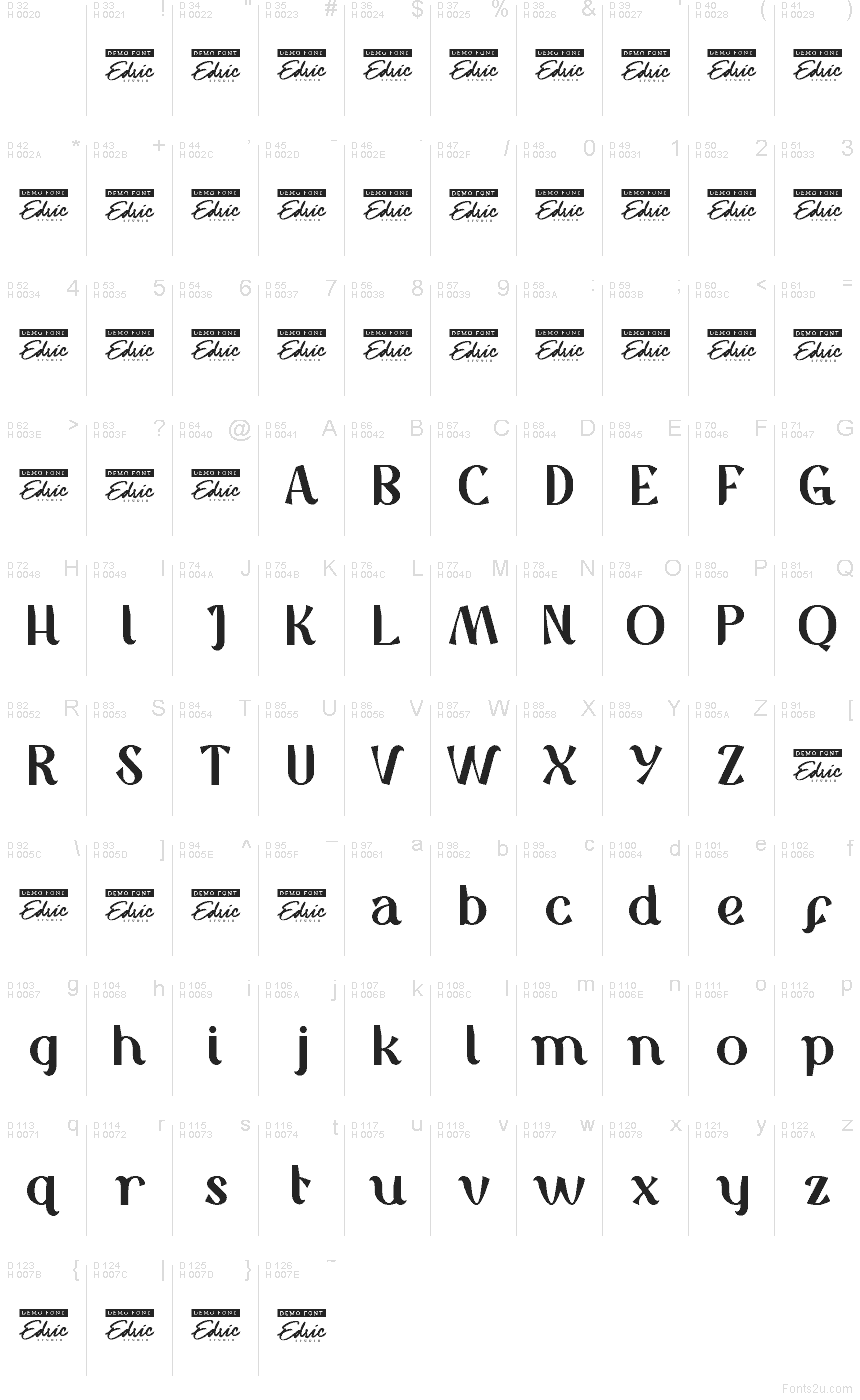
Steph Carly Sans Serif font by Edric Studio is a free vintage sans serif typeface with a softly hand-lettered feel and inky, flowing curves. Each letter bends and curls with a sign-painter’s confidence, giving words a warm, boutique character while staying clearly readable. The strokes feel slightly brushy and organic, so your typography carries a human touch rather than a stiff, digital edge.
Using Steph Carly Sans Serif, your headlines instantly feel at home on coffee packaging, artisan product labels, logo wordmarks, menus, book covers, and nostalgic posters. This free font shines when set large, where its sculpted curves can breathe; pair it with a clean geometric sans or a simple grotesk for body text to keep layouts balanced and easy to read.